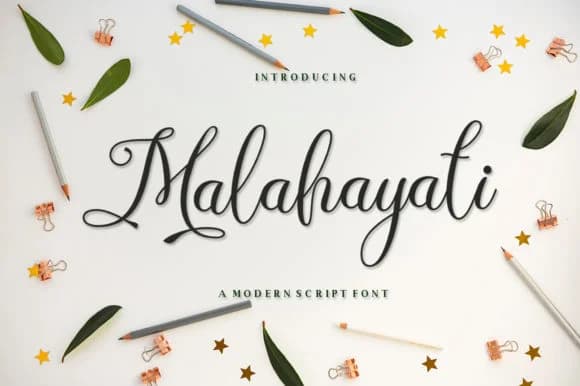
Malahayati Script Font by IM Studio is a fluid, expressive handwritten script that brings authentic character and movement to your design work. With its distinctive letterforms and naturally flowing baseline variations, this typeface perfectly captures the energy and spontaneity of organic handwriting while maintaining strong legibility across both digital screens and print substrates. The design balances visual dynamism with practical functionality, making it suitable for designers seeking a script that doesn't sacrifice readability.
This script excels for wedding invitation suites where contemporary elegance meets celebratory warmth, and for boutique beauty brand packaging that calls for refined sophistication. It works equally well for Etsy vintage shop listings and artisan marketplaces, DIY greeting card projects where handmade authenticity matters, and custom monogram designs that serve as personal signatures. Small business owners appreciate it for stationery design, while illustrators find it invaluable for children's book titles and chapter headings.
Malahayati Script Font is a script font that shines as a display or heading face. Pair it with a clean sans-serif or serif font for body text β the contrast creates a clear hierarchy while the two styles stay balanced and easy to read.
Malahayati Script Font
by IM Studio